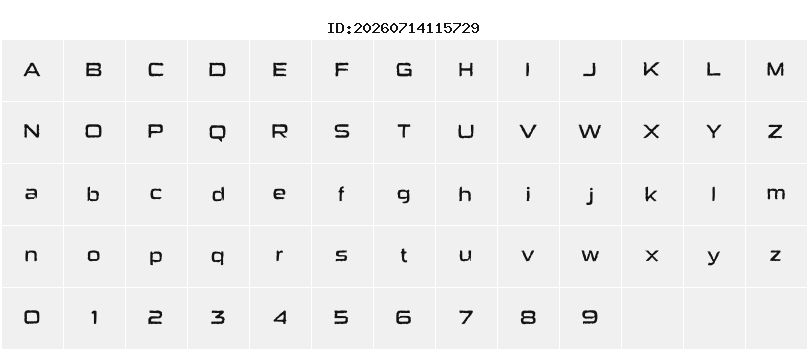
• Font Name: HeavyBomb
• Font Style: HeavyBomb
About HeavyBomb.ttf
HeavyBomb.ttf is a modern, elegant sans-serif font designed for ultimate readability and visual harmony. Perfect for branding, headlines, web design, and print materials.